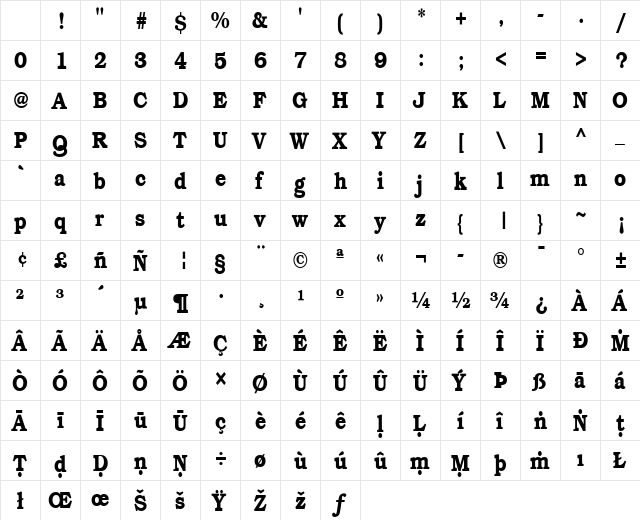
Complete Pali Bookman Cond Regular glyph index. Displaying only characters natively supported by Pali Bookman Cond Regular font.
Pali Bookman Cond is a composed and adaptable typeface that performs quietly and consistently across a wide range of design contexts. Its narrow stance lets it pack a punch even in space-constrained designs.